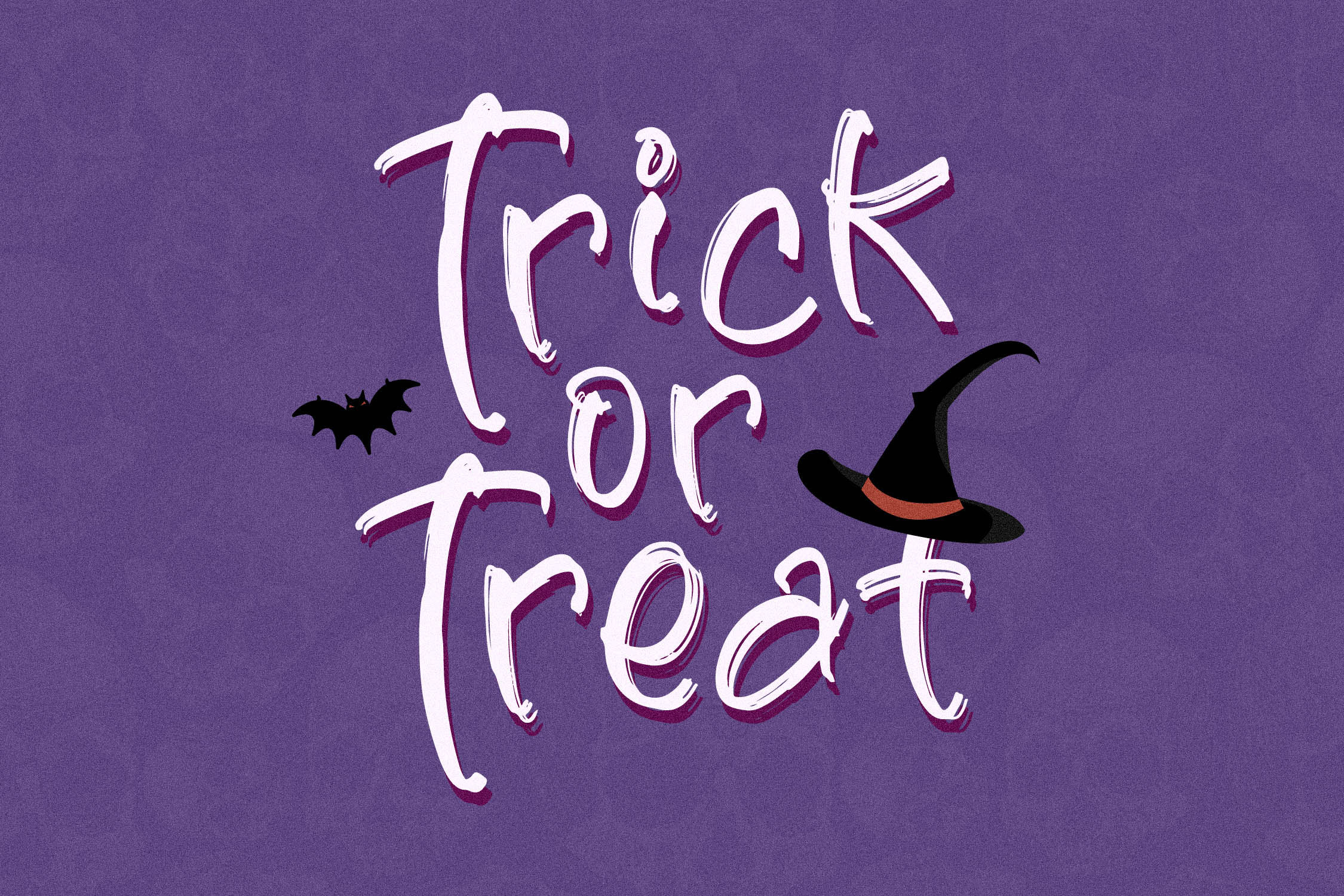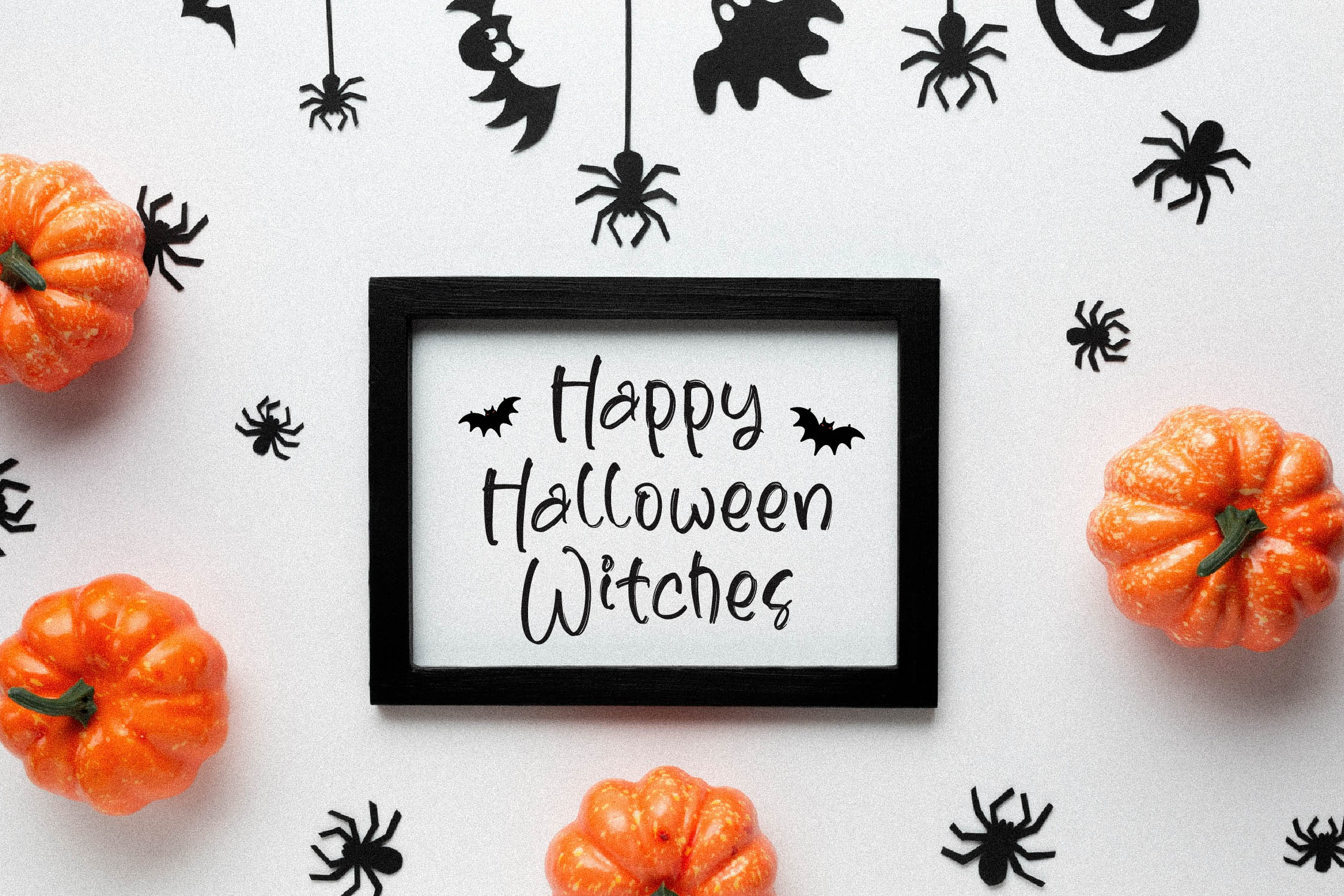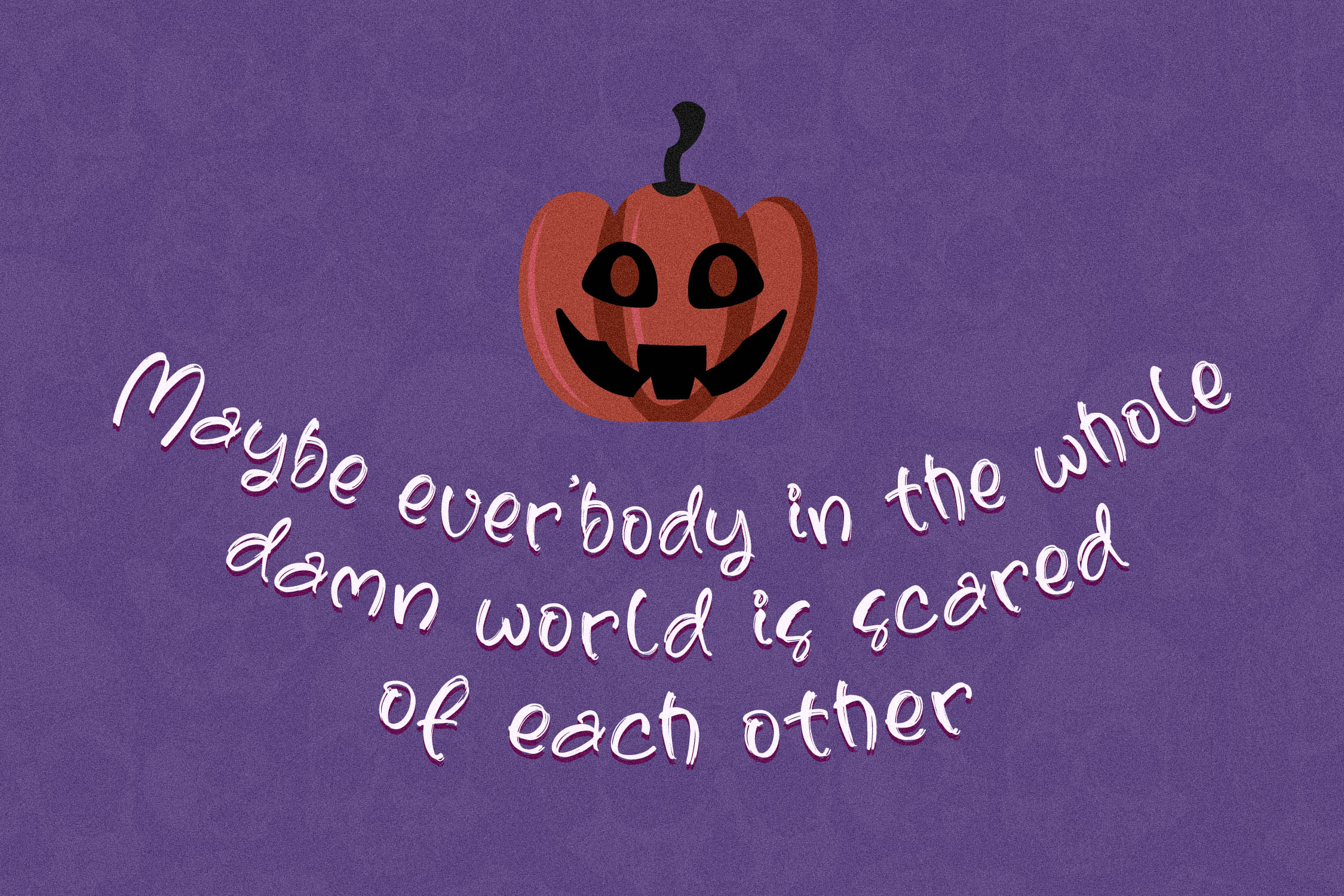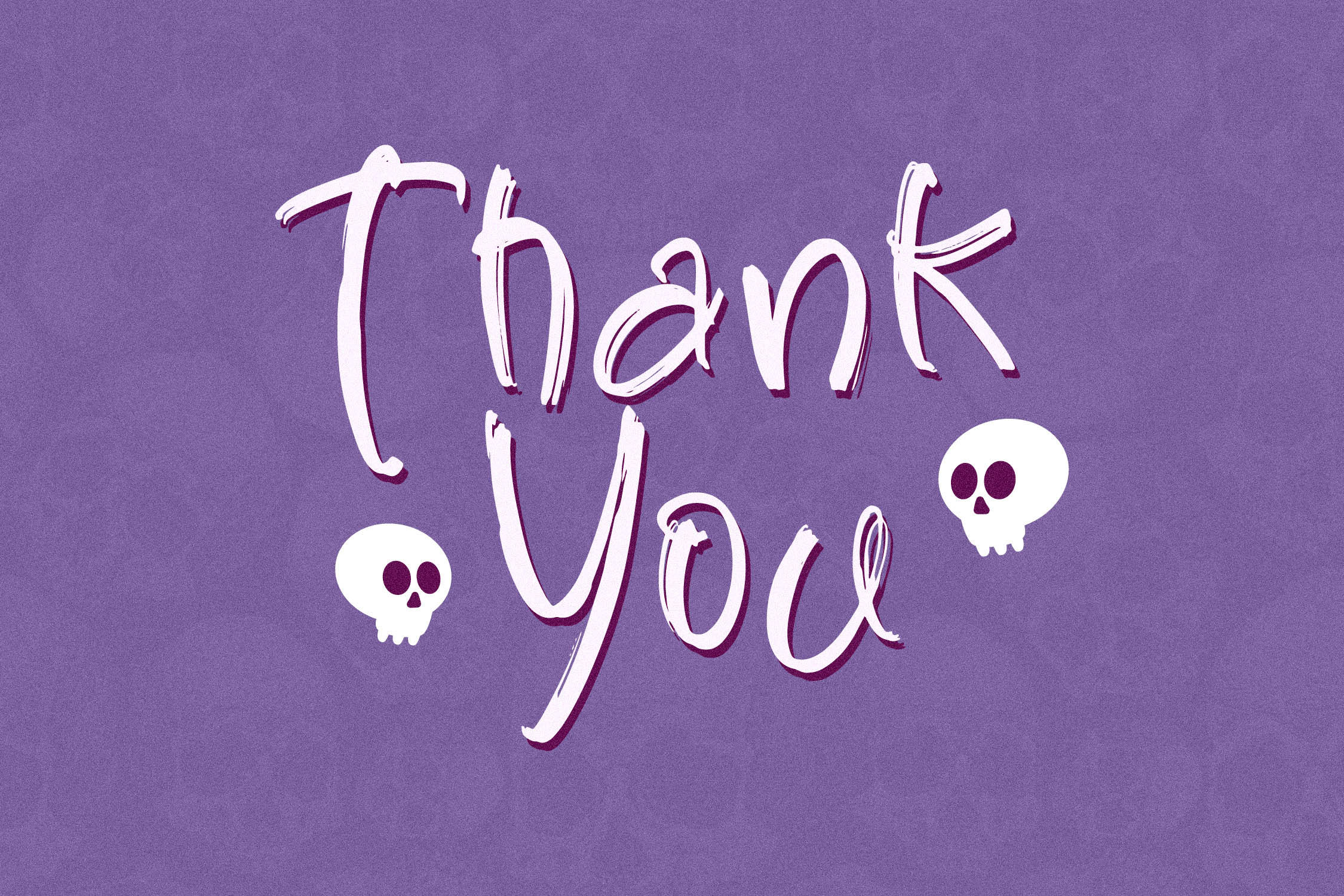
Skull Dutchman Font
Skull Dutchman Display Font is a Spooky Handbrush Font, suitable for any projects such as: logos, branding projects, homeware designs, product packaging, mugs, quotes, posters, shopping bags, t-shirts, book covers, name card, invitation cards, greeting cards, label, photography, watermark, special events, and all your other lovely projects that need a beautiful script taste.